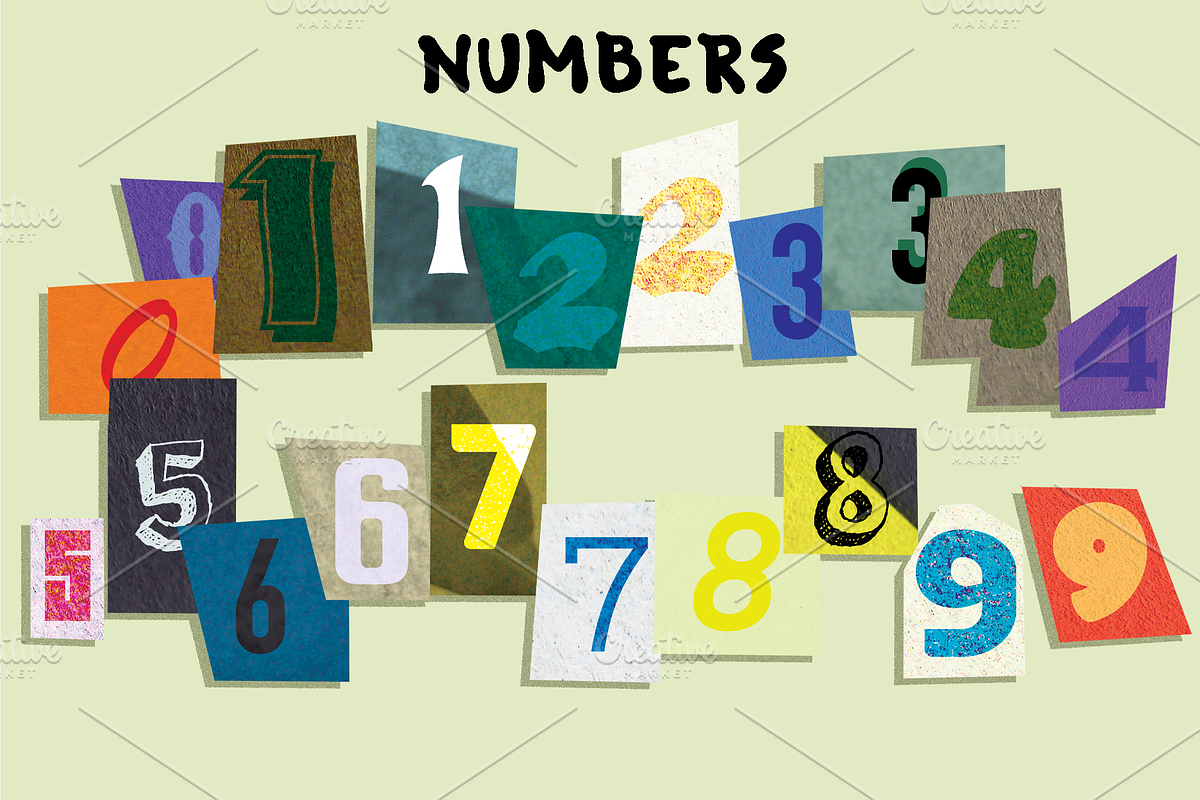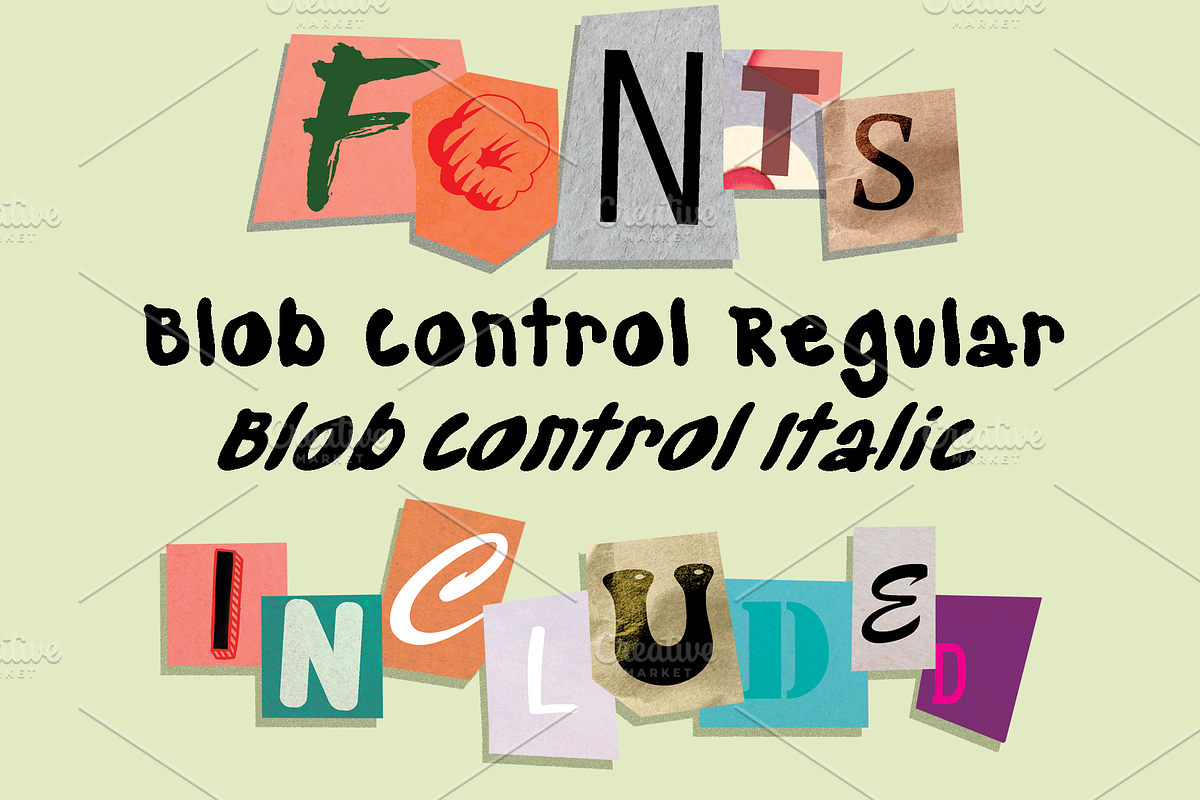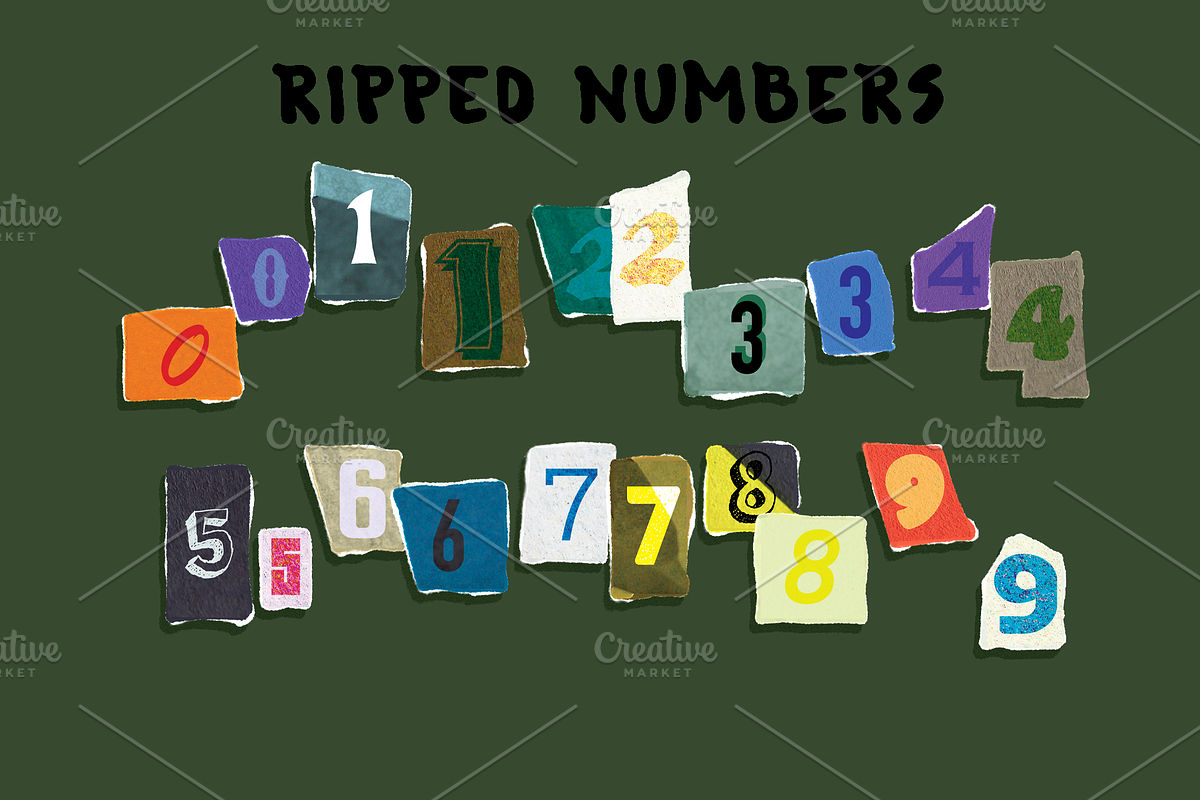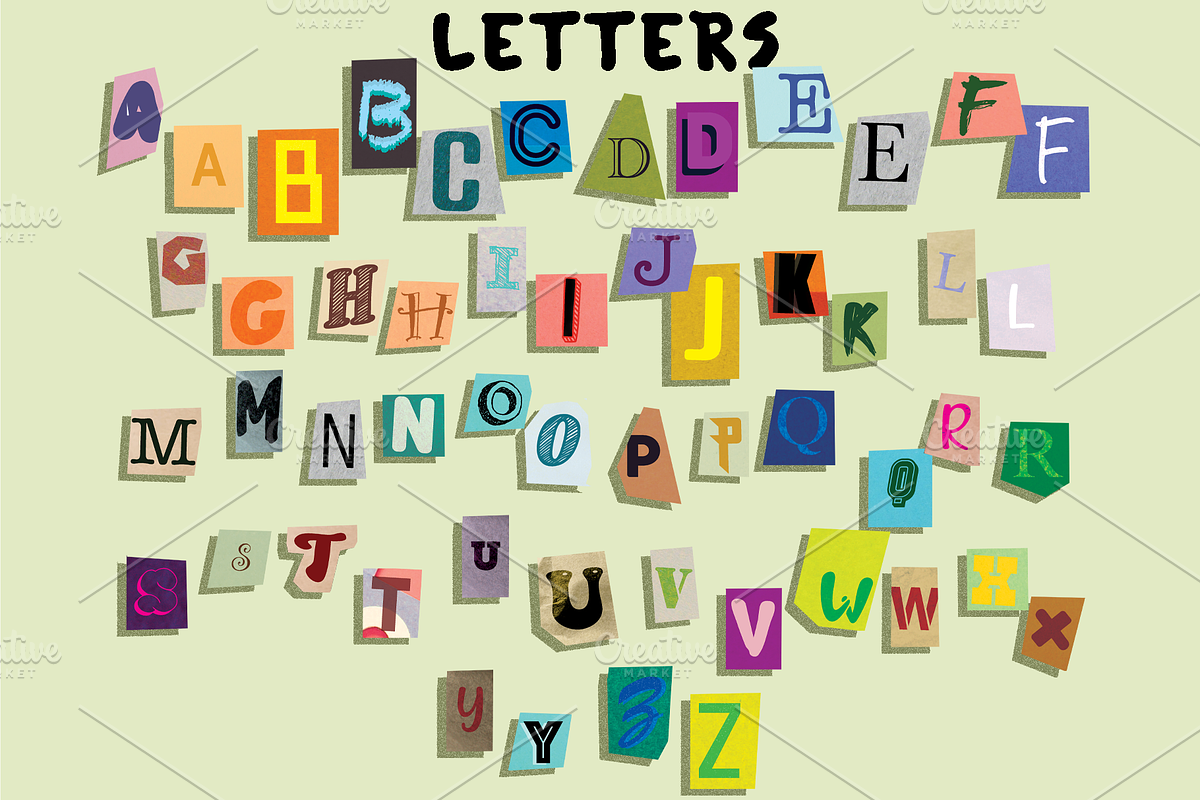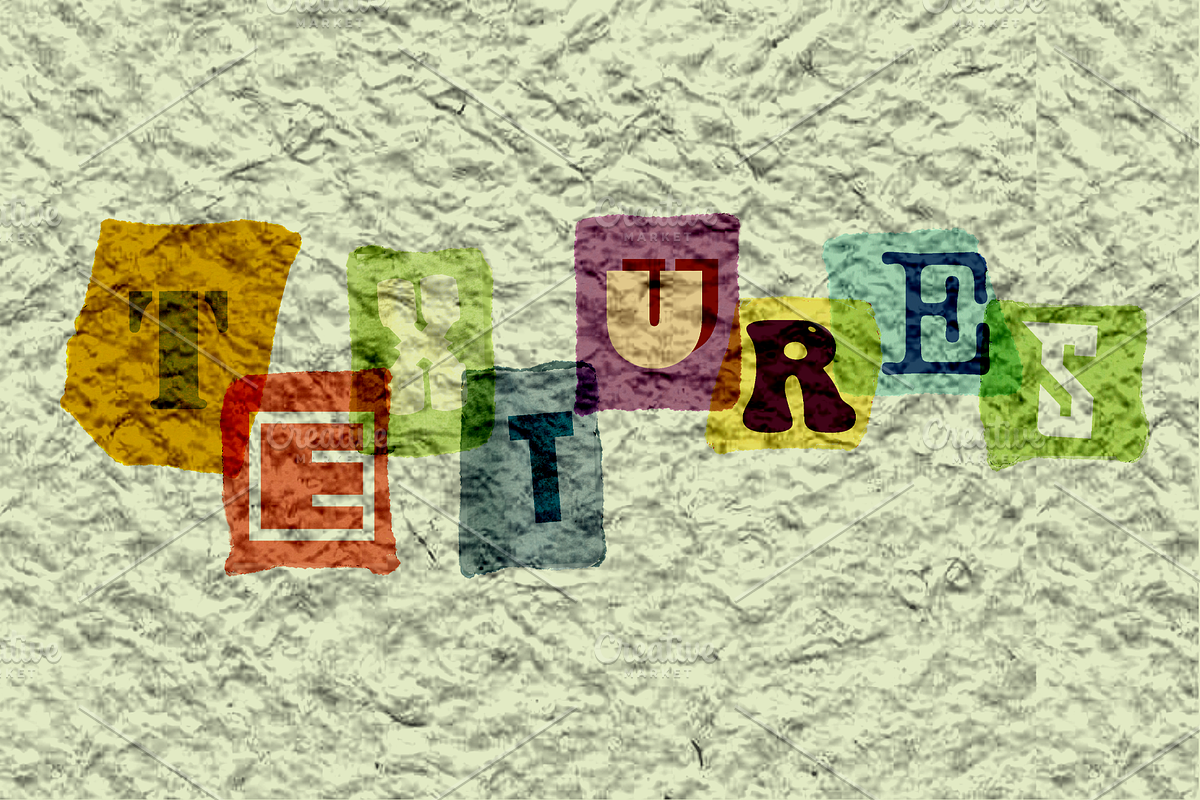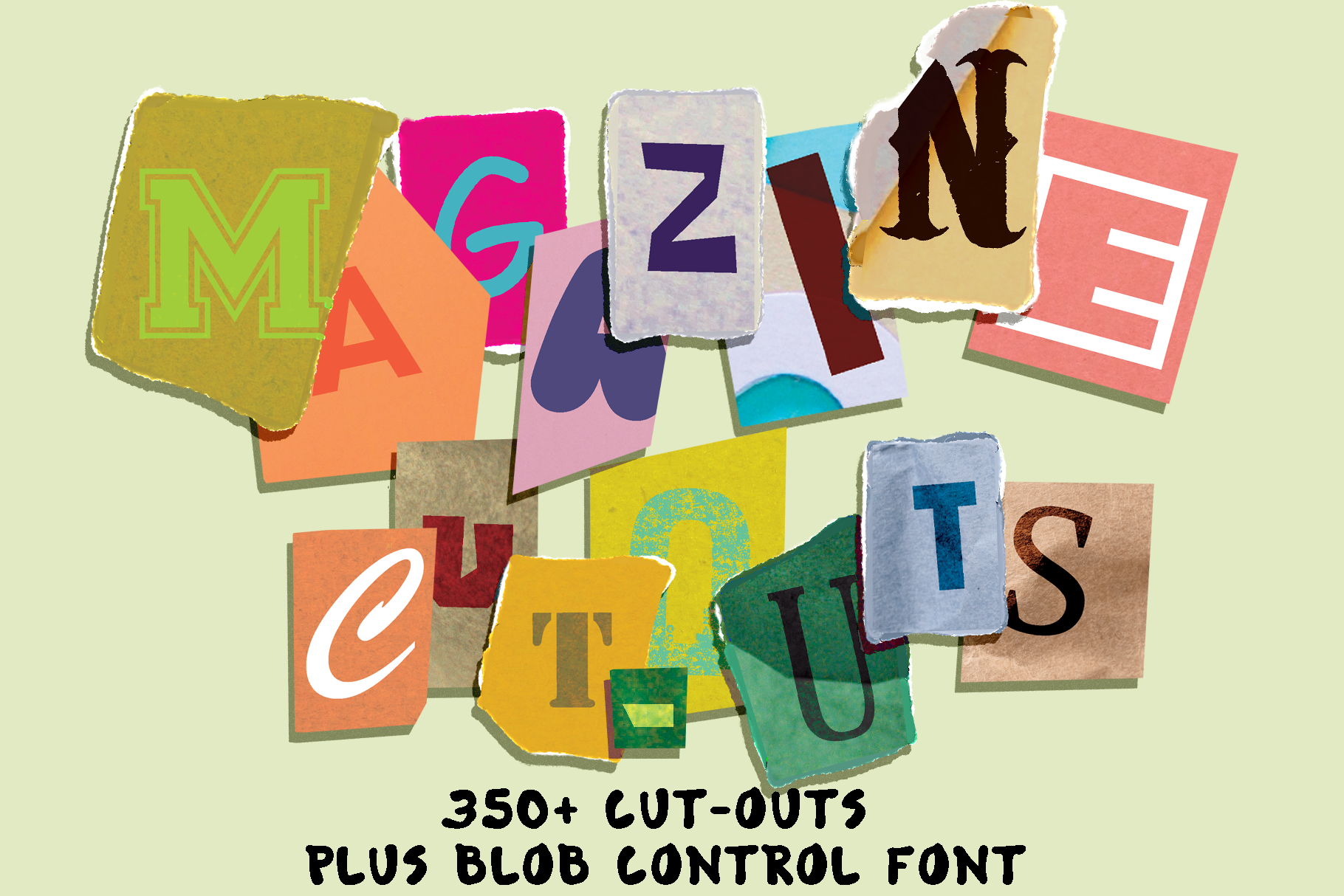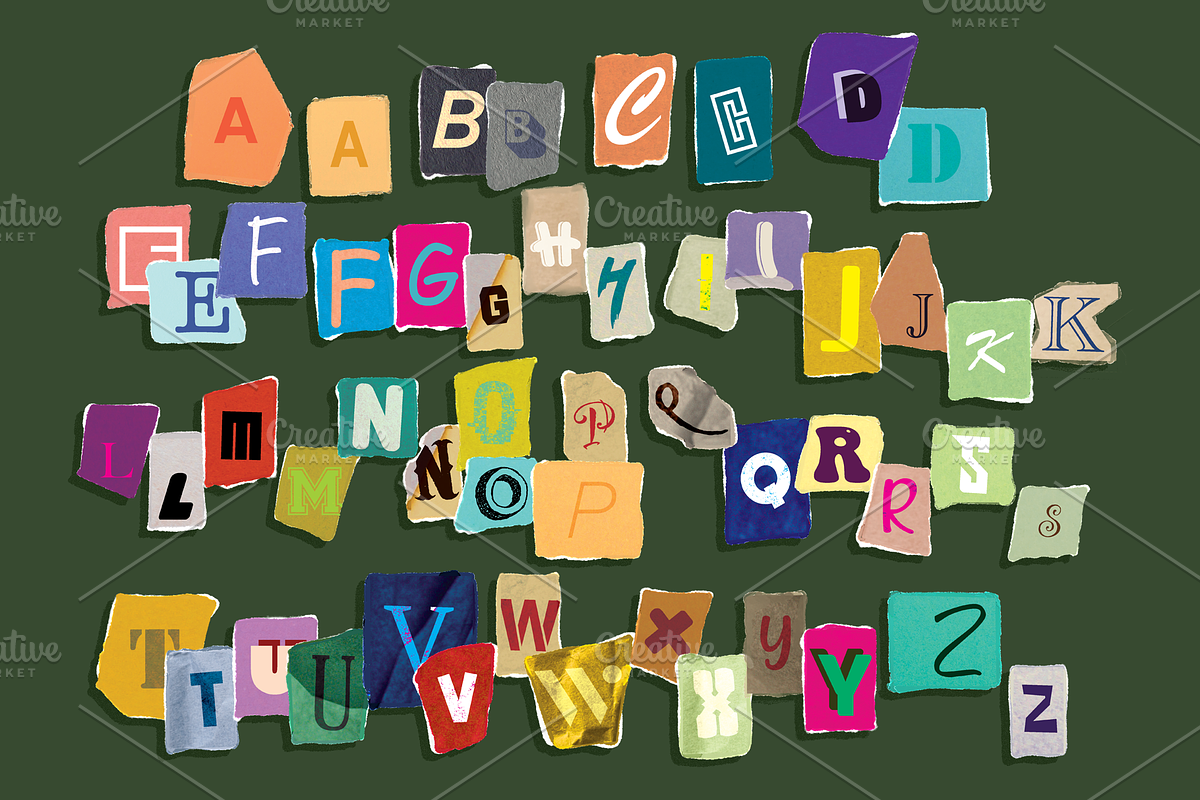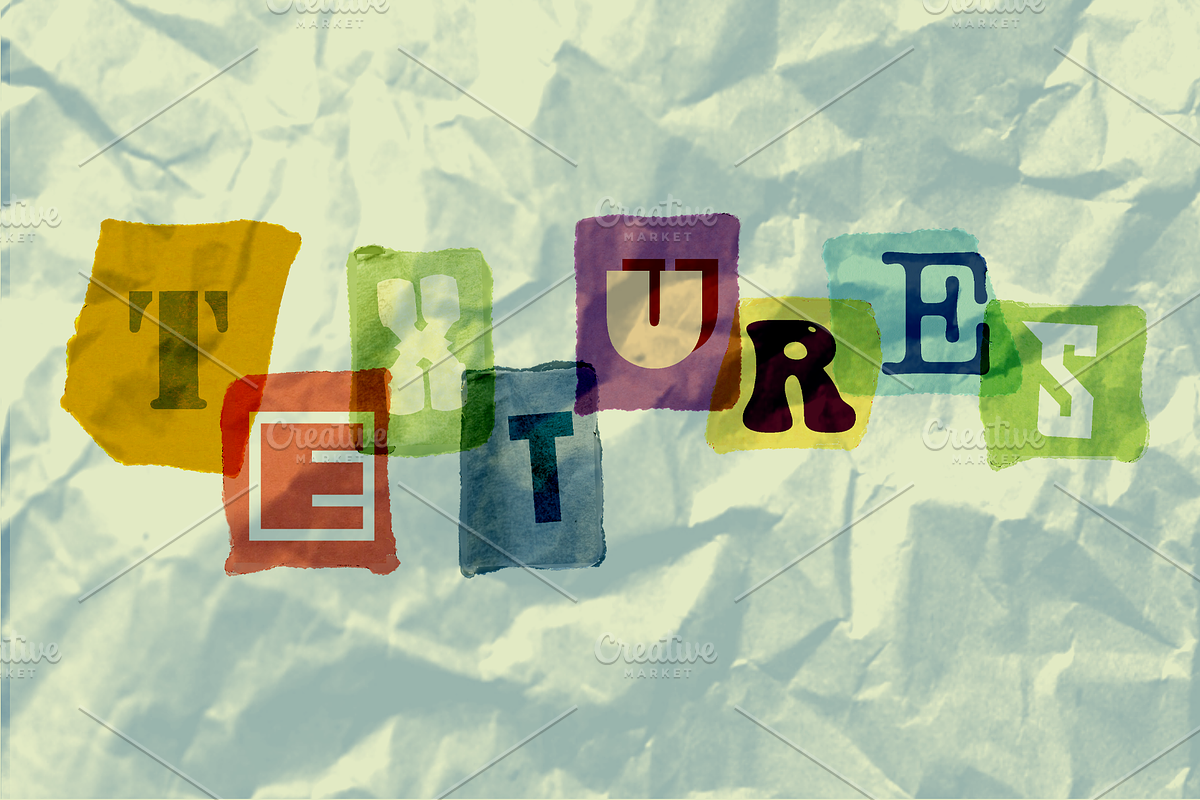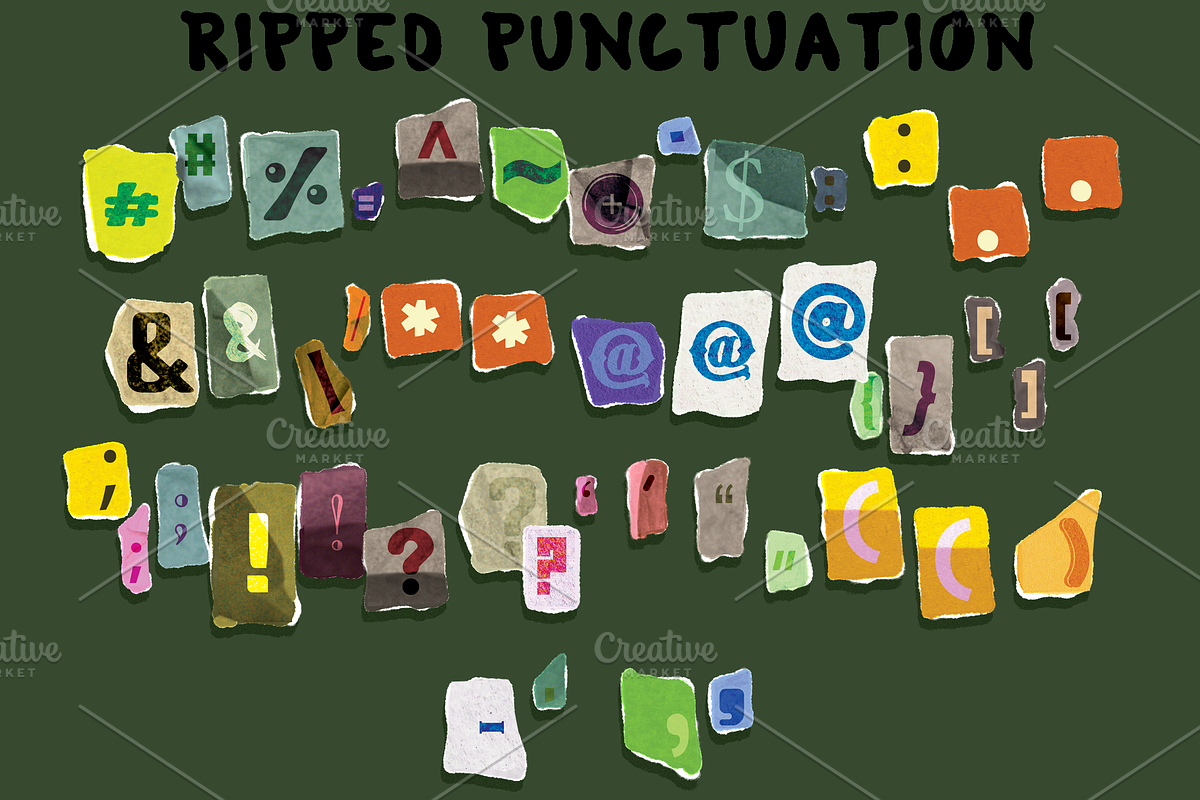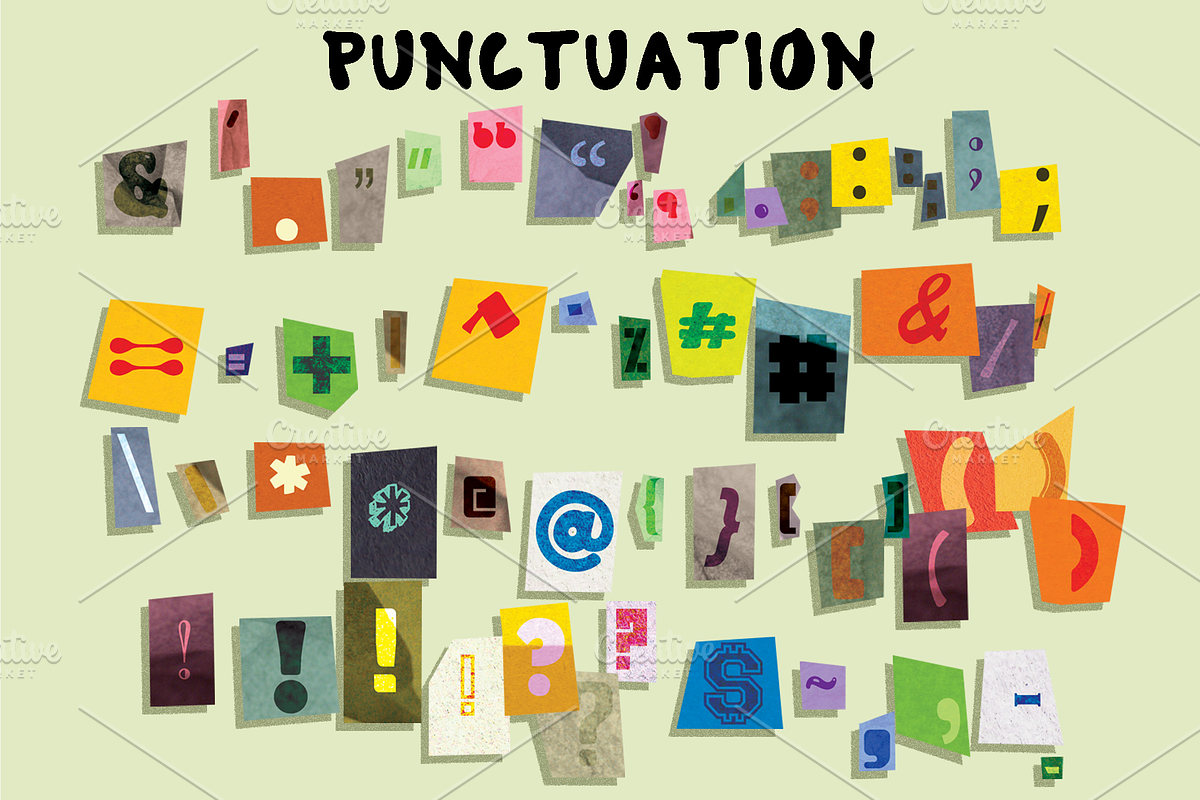
Magazine Cut-Outs+Blob Control Font
Rachel McBride Creative's Magazine Cut-Outs are a comprehensive set of digitally produced magazine cut-outs.
This set of magazine cut-outs is unique in that it includes clean-cut and ripped versions of characters. This makes for a more realistic look. It also allows for you to have whatever you need to fit the vibe of your project.
- 5 clean-cut versions of each letter
- 2 clean-cut versions of each number
- Clean-cut punctuation and symbols
- Ripped versions of letters
- Ripped versions of numbers
- Ripped versions of punctuation
- Blob Control Regular font
- Blob Control Italic font
Blob Control is the perfect typeface to use for any project that needs a youthful or juvenile flair. It's inspired by the messy, eccentric nature of adolescence. It comes with seven fonts and weights, and you get two of them for free in this kit!
- Blob Control Regular
- Blob Control Italic
It comes equipped with over 400 characters to support most western languages!
Great for use on children's books, toys, handwritten projects, retro projects, websites, and animations/cartoons.